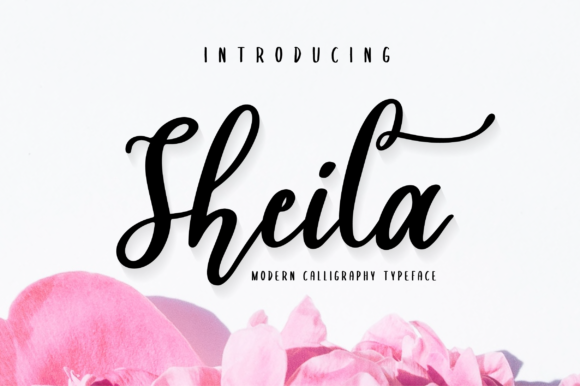
Sheila Script Font
Prepare yourself to be enchanted by the captivating allure of Sheila Script Font, a breathtaking masterpiece lovingly crafted by Fanastudio. This enchanting script, adorned with graceful swashes that dance across the page, will ignite your designs with an irresistible romantic charm.
Indulge in the unparalleled elegance of Sheila Script Font, where every letter whispers a tale of passion and desire. Allow your creativity to soar as you explore the endless possibilities offered by this exquisite script. Whether it's for a heartfelt invitation, a captivating logo, or a website that emanates romance, Sheila Script Font will effortlessly transform your vision into an unforgettable reality.
Let your imagination embark on a whimsical journey with Sheila Script Font. Imagine the sheer delight of your loved ones as they receive a heartfelt letter penned in the enchanting curves of this script, carrying your words like a gentle caress. Picture the impact it will have on your brand, as your logo exudes a timeless sophistication that captivates every beholder.
With Sheila Script Font, the power of expression is limitless. Whether you seek to evoke a sense of nostalgia, convey a touch of playfulness, or simply capture the essence of love, this remarkable script will be your steadfast companion. Its versatility knows no bounds, making it the perfect choice for a wide range of creative endeavors.
So, if you yearn to elevate your designs to new heights of beauty and enchantment, look no further. Sheila Script Font is the key to unlocking your creative potential. Embrace the allure of this captivating script today and watch as your words and designs blossom into works of art that will leave an everlasting impression.